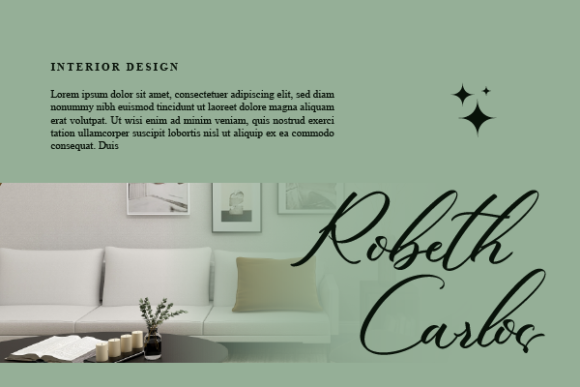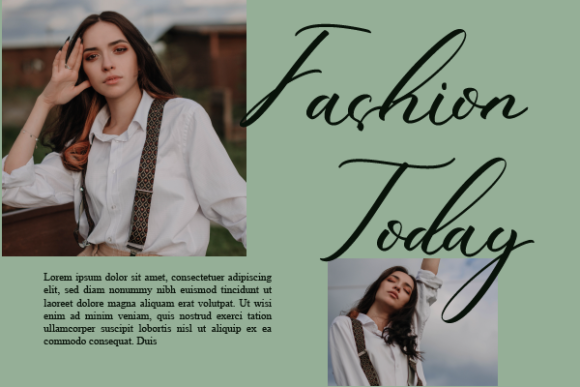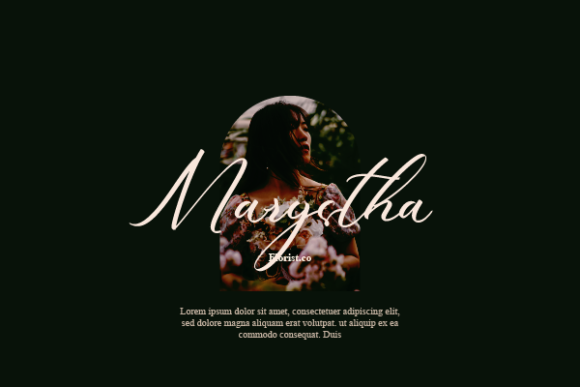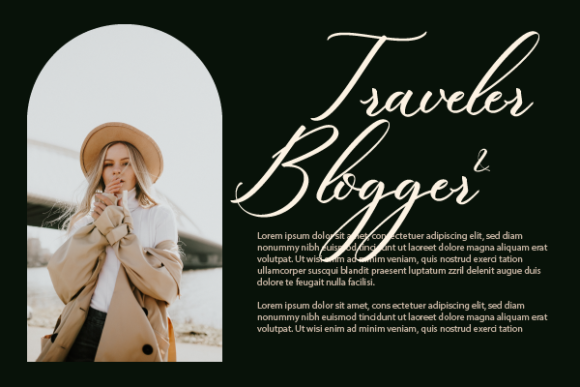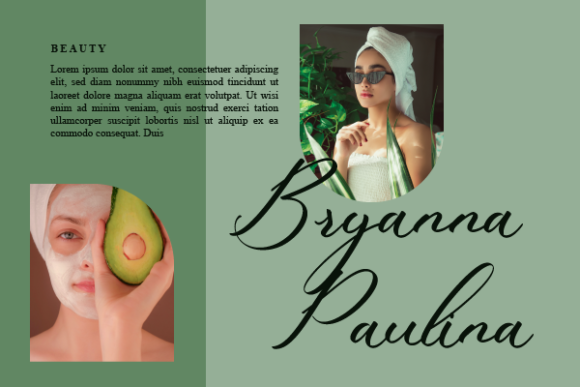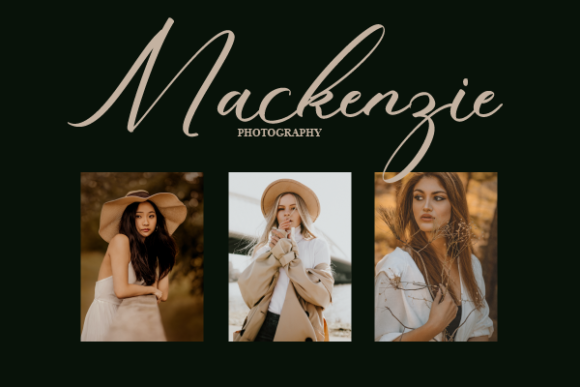
Introduction to Madeleine Melanie Font
Have you ever found yourself rummaging through a stack of old love letters or antique postcards, captivated by the whimsical handwriting and the emotions it evokes? That’s exactly the kind of charm and romance that the Madeleine Melanie Font embodies. With its delicate and dainty strokes, this font is a perfect design resource for adding a touch of elegance and whimsy to your creative projects.
As designers, we’re always on the lookout for high-quality fonts that can elevate our work and make it stand out. The Madeleine Melanie Font is a valuable addition to any designer’s toolkit, offering a range of possibilities for creating unique and personalized designs. Whether you’re working on a wedding invitation, a card, or any other project that requires a romantic and delicate touch, this font is sure to impress.
Key Features of Madeleine Melanie Font
- High-quality design resource perfect for creative projects, including invitations, greeting cards, and more.
- Comes with a transparent background, allowing for easy customization and layering in your design.
- Features a unique, elegant script design that is ideal for adding a touch of sophistication to your creative project.
- Designed to be highly legible, even at smaller font sizes, making it perfect for use in a variety of contexts.
Honest Review: Madeleine Melanie Font
As a designer, I’m always on the lookout for high-quality fonts to elevate my creative projects. Recently, I had the chance to try out the Madeleine Melanie Font, and I must say it’s been a great addition to my design resources.
Here are some of the things that work well with this font:
- ✨ Beautiful, elegant script style that adds a touch of sophistication to any design
- ✨ High-quality, clear and crisp characters that make it perfect for digital and print use
- ✨ Transparent background, making it easy to customize and use with different backgrounds
While the Madeleine Melanie Font is a great choice for many designers, there are a few limitations to consider:
- ⚠️ Limited character set, which may not be suitable for longer texts or complex designs
Overall, I’m really impressed with the Madeleine Melanie Font, and I think it’s a great resource for designers looking to add a touch of elegance to their creative projects. With its high-quality design and free download option, it’s definitely worth checking out.
The Madeleine Melanie Font is ideal for a variety of creative projects, including wedding invitations, branding materials, and social media graphics. Its high-quality design and transparent background make it perfect for use in a range of design applications.